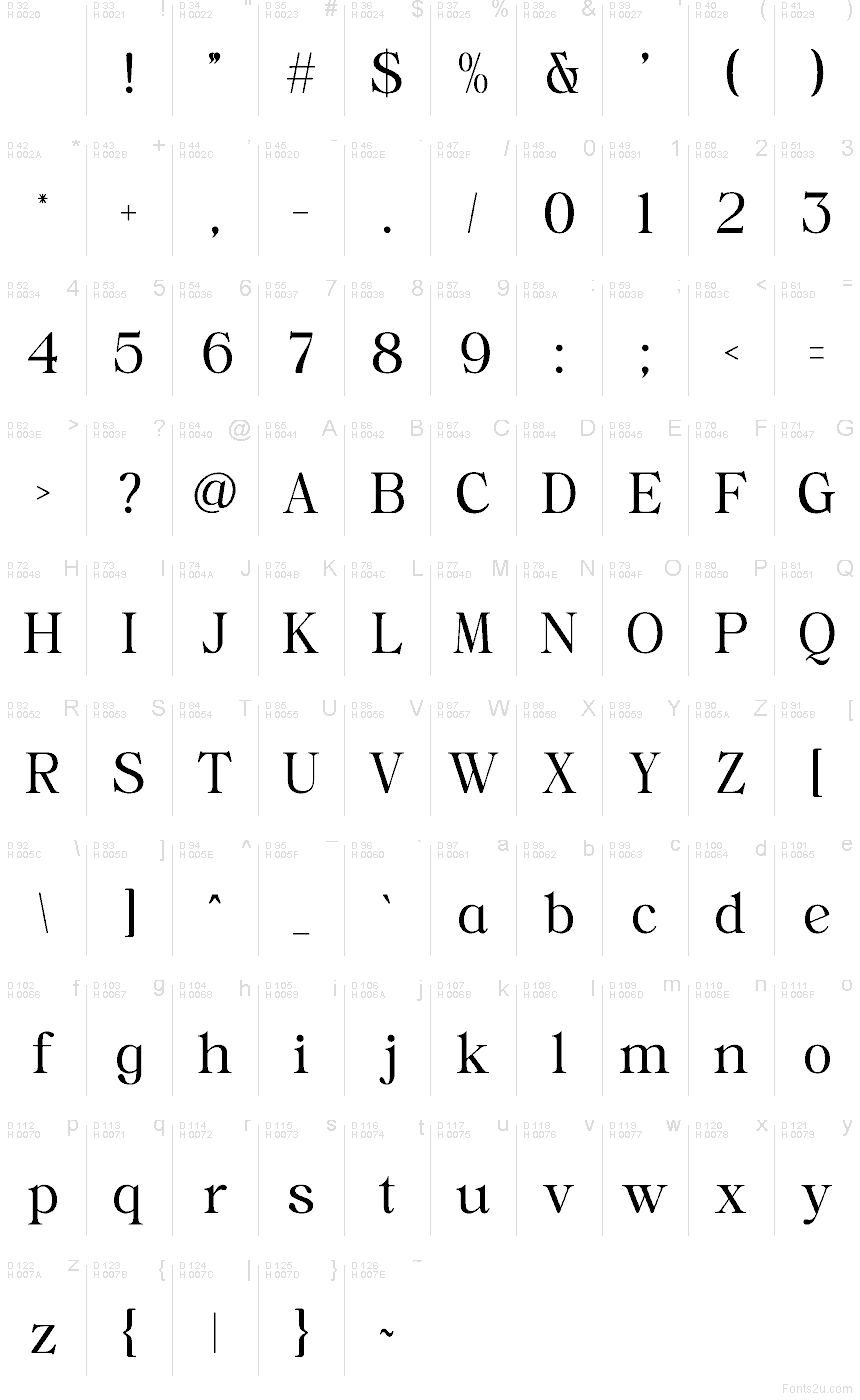
Realistic Nature by TimelessType is a free editorial serif with a refined, classic tone. The letters pair soft, flowing curves with sharp contrast and a poised rhythm, so the font feels elegant rather than ornate, with just enough drama in the serifs and joins to give headlines a polished literary mood.
It sits naturally in magazine mastheads, book covers, beauty packaging, cafe branding, and invitation titles, where that graceful contrast can carry a short line without extra decoration. As a free font, it also works well for quote cards, cover lines, and monogram-style initials, especially when you want something cultured and slightly romantic.